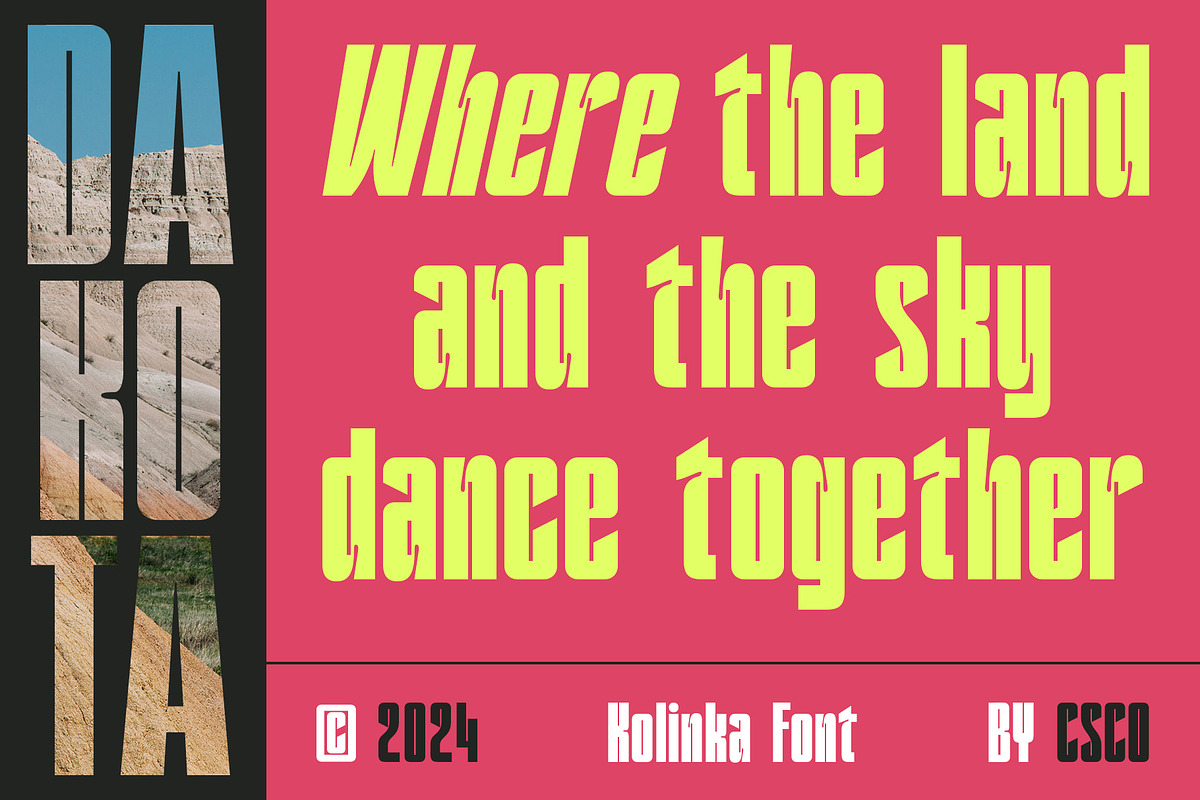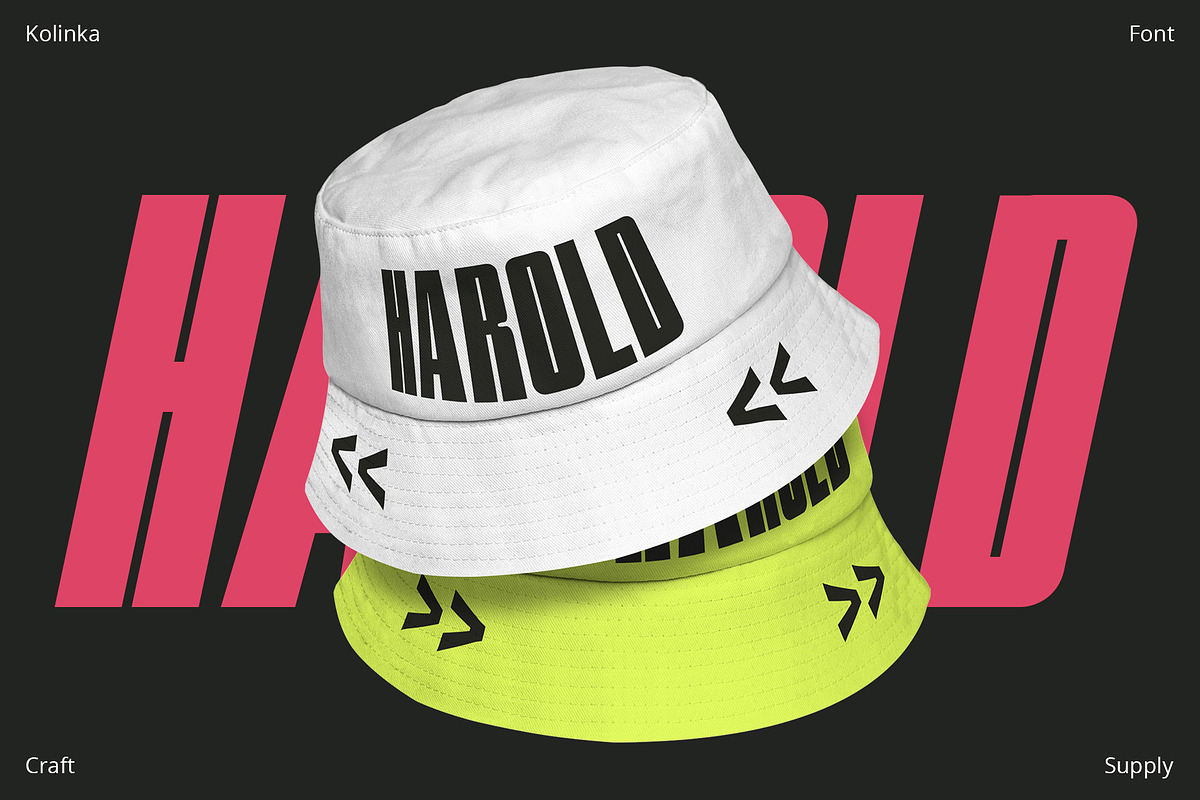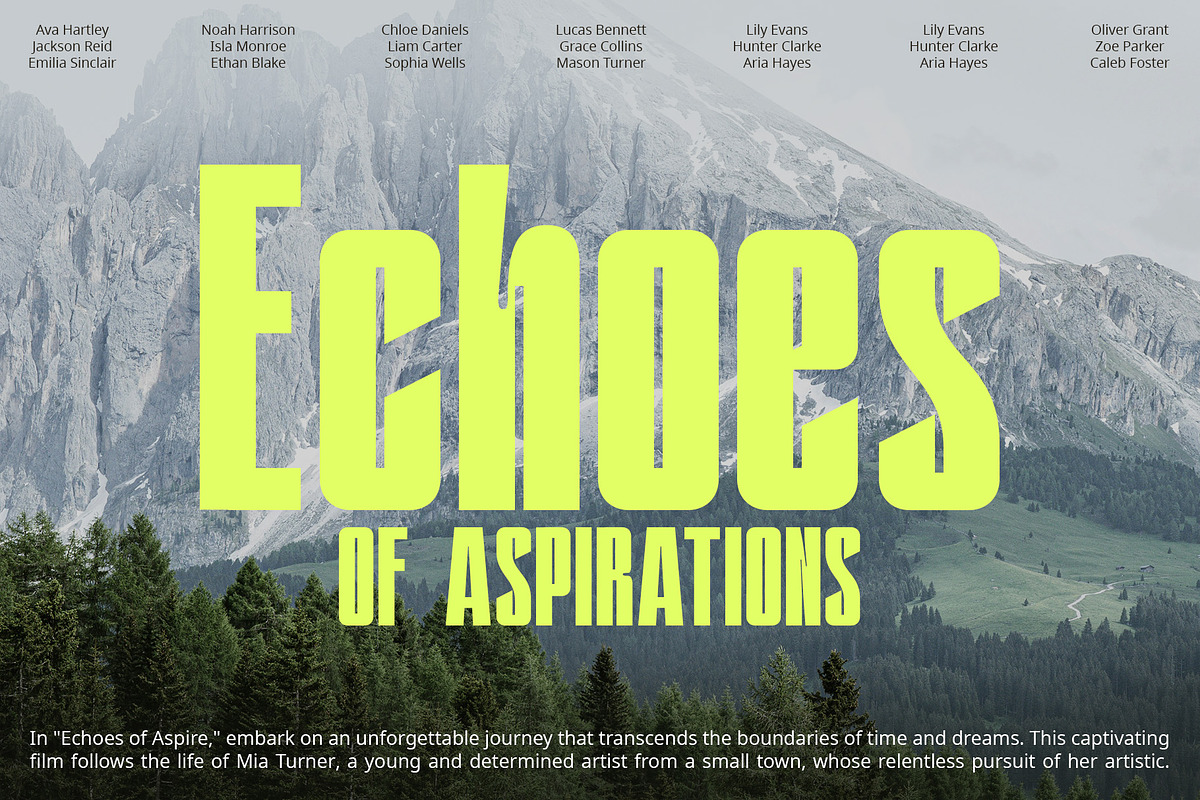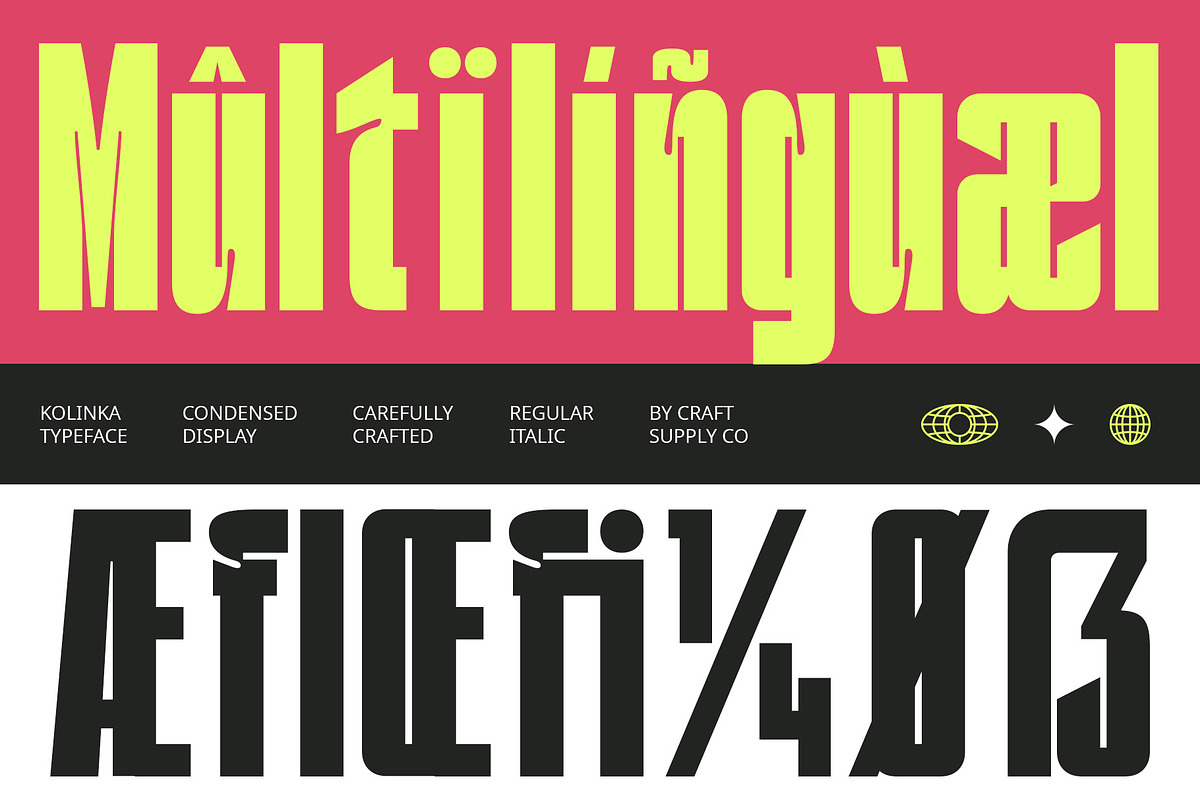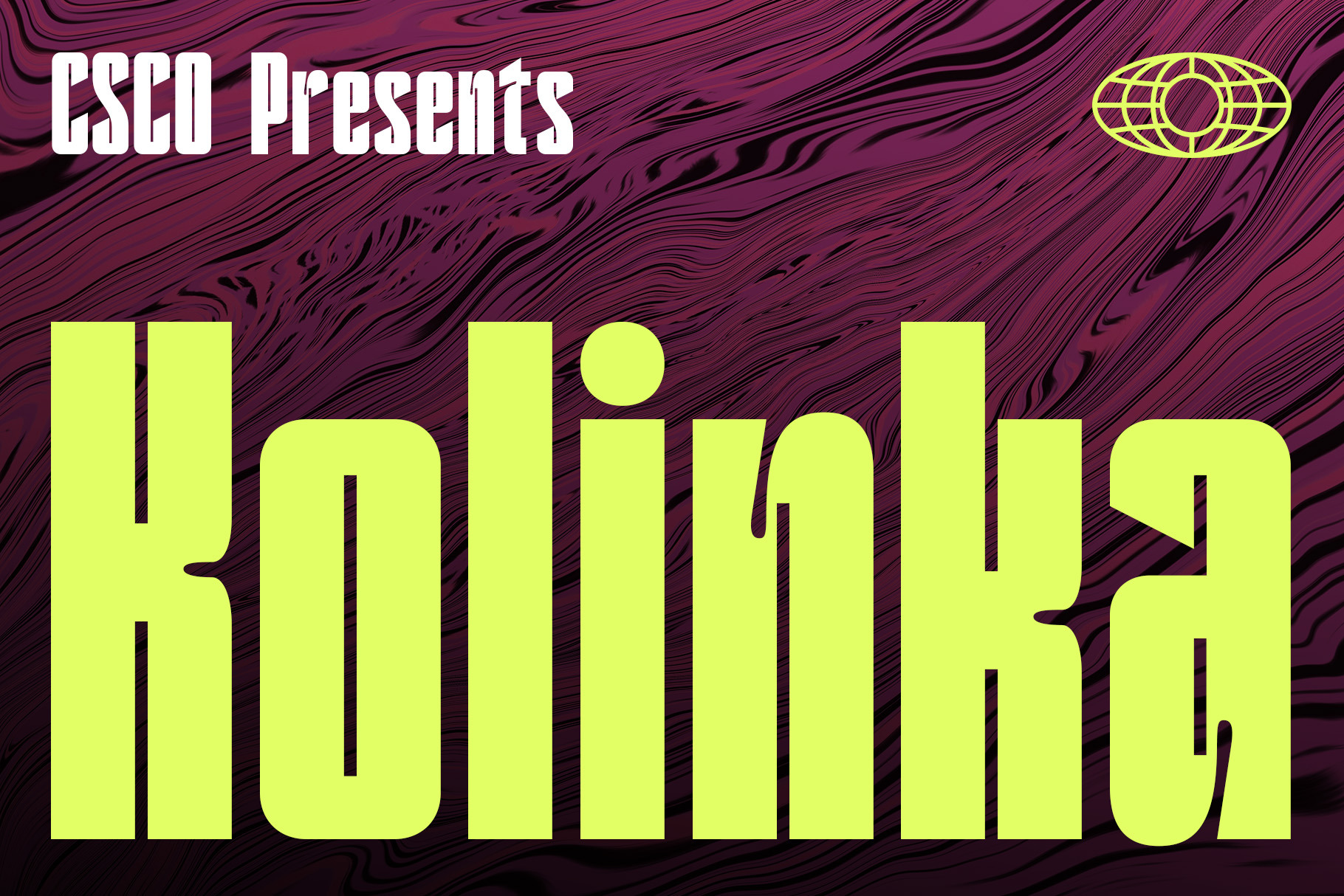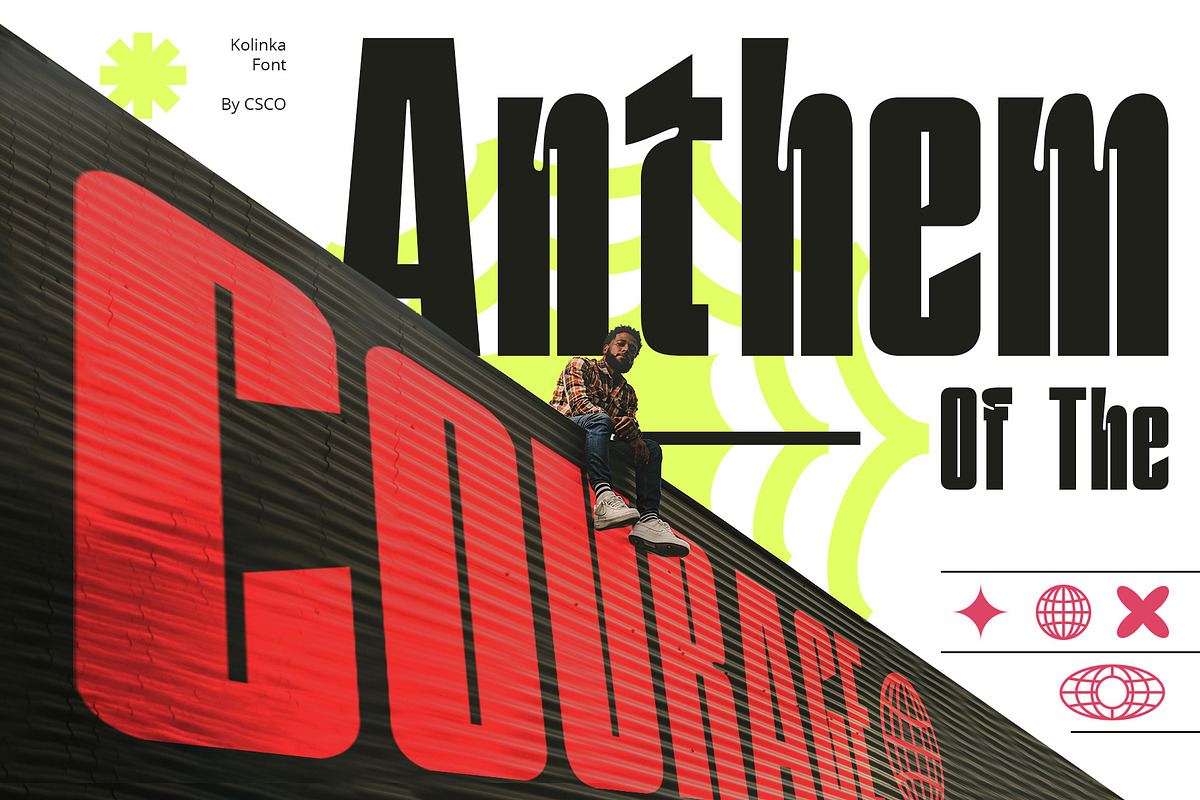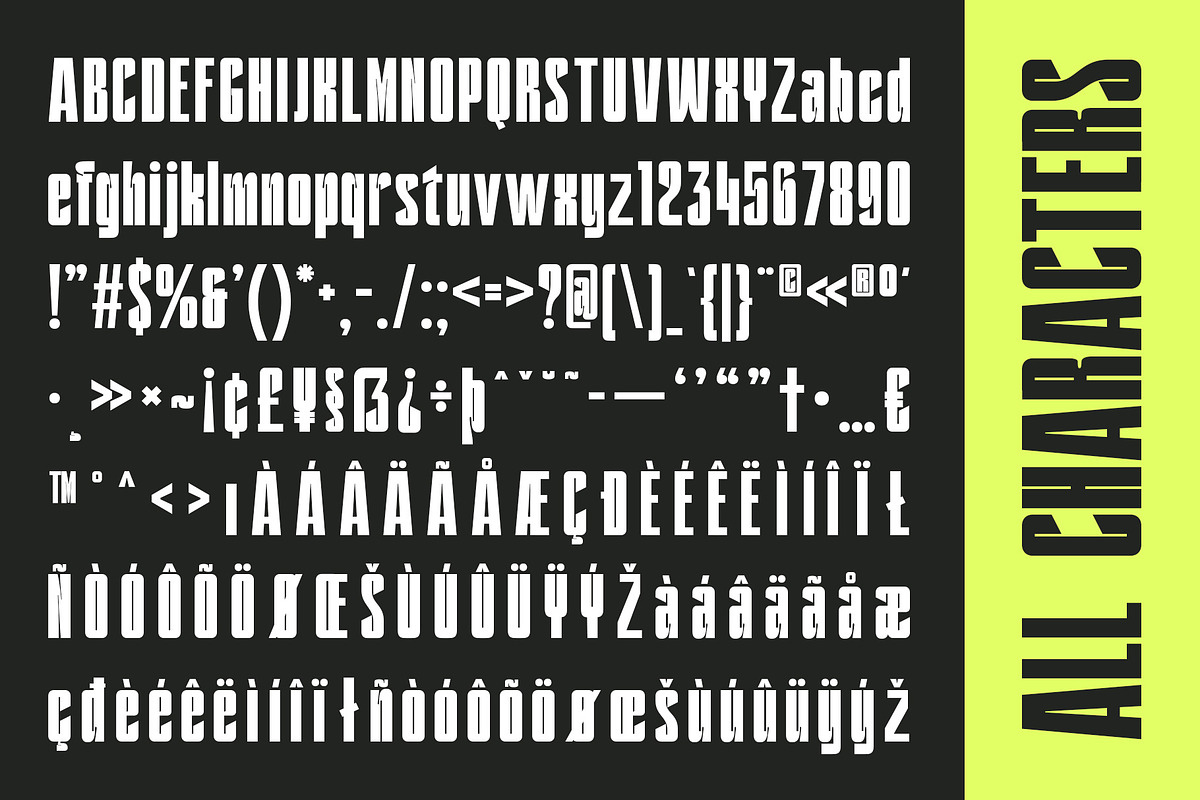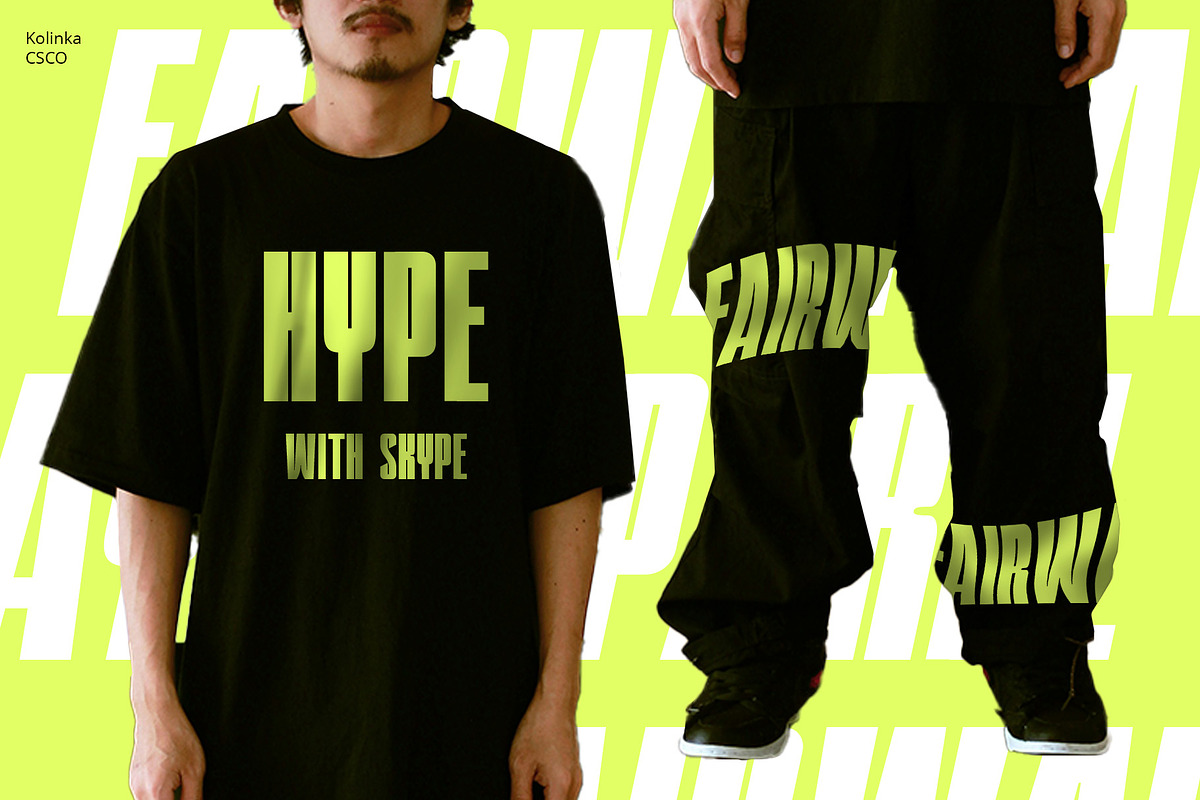
Kolinka – Inktrap Font
Kolinka – Inktrap Font: Bold Elegance with Inktrap Detailing
Bold Inktrap Sans-serif Font
Kolinka Font is a bold sans-serif typeface featuring inktrap detailing, adding character and charm to its design. Its boldness and inktrap style make it stand out in various design applications, ensuring your text makes a bold statement.
Tight Spacing for a Condensed Look
With its tight spacing, also known as condensed design, Kolinka Font maximizes space efficiency without compromising readability. This makes it ideal for projects where space is limited but impact is crucial, such as headlines, banners, and logos.
Suitable for Various Designs
Kolinka Font is versatile and suitable for a wide range of design applications. Whether you’re creating posters, packaging, or branding materials, its boldness and condensed form make it a great choice for projects that need to make a strong visual impact.
Add Character and Charm to Your Designs
Elevate your designs with Kolinka Font, where bold elegance meets inktrap detailing. Its unique style adds character and charm to any design, ensuring your text stands out with style and sophistication.
- Kolinka Regular
- Kolinka Italic